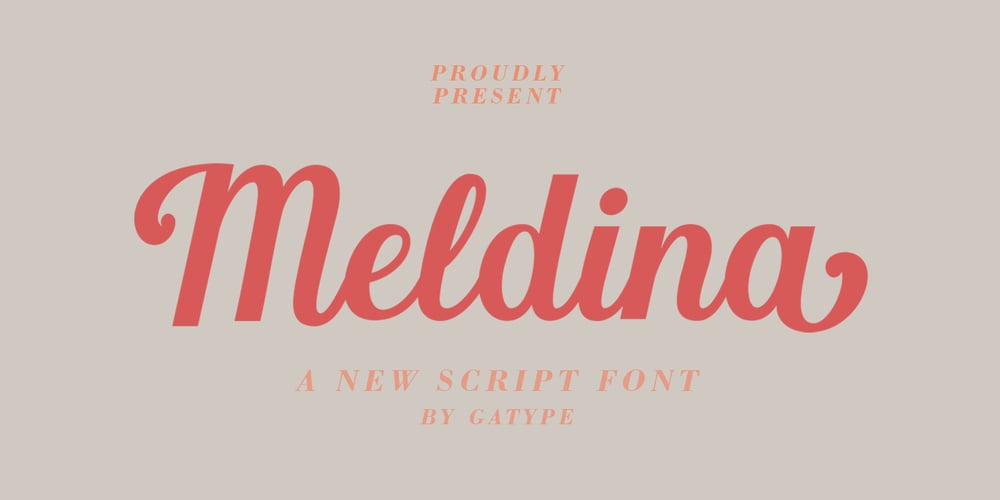
Meldina Font Family was designed by khaidir and published by Gatype. Meldina contains 1 styles and family package options. Meldina is a modern calligraphy font. This font is casual and pretty with a stroke. Can be used for various purposes. such as logos, product packaging, wedding invitations, branding, headlines, signage, labels, signatures, book covers, posters, quotes and others. Meldina featuring OpenType style alternatives, ligatures, and International support for most Western Languages is included. To enable the OpenType Stylistic alternative, you need a program that supports OpenType features such as Adobe Illustrator CS, Adobe Indesign & CorelDraw X6-X7, Microsoft Word 2010 or a later version. Meldina is encoded with PUA Unicode, which allows full access to all additional characters without having to design special software. Mac users can use Font Book , and Windows users can use Character Map to view and copy any additional characters to paste into your favorite text editor/application. .If you need help or have any questions, let me know. I’m happy to help. Thank you